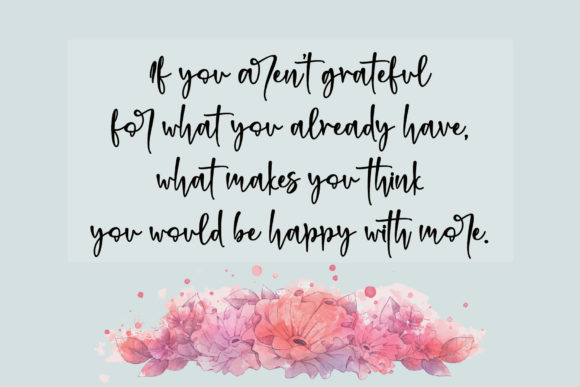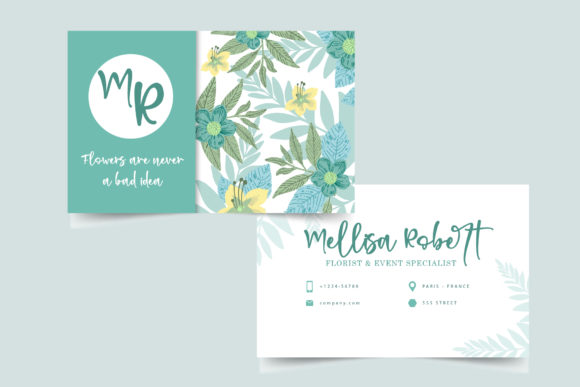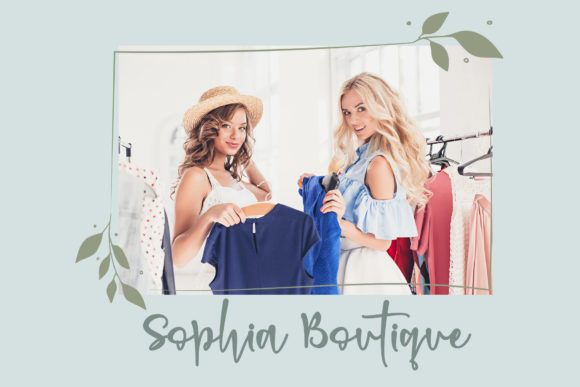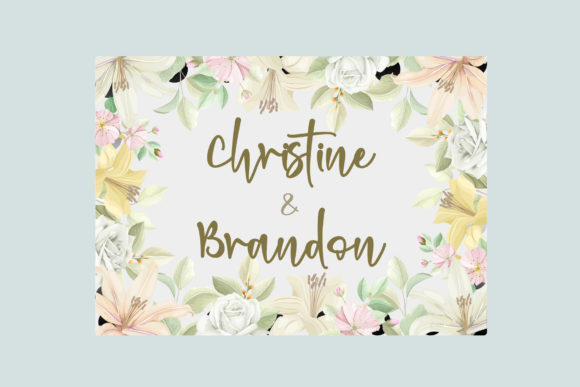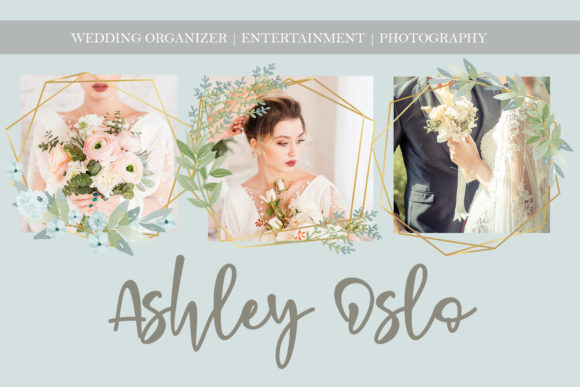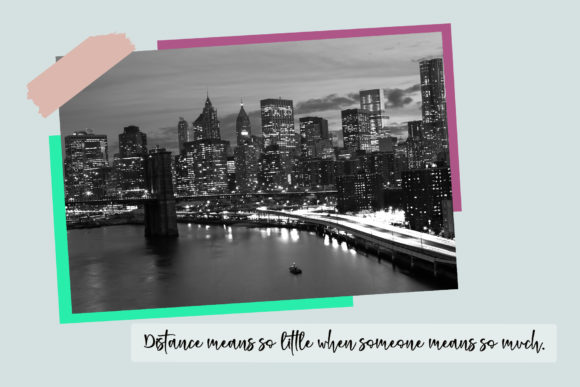
The Magic of Gerallydine Font: Elevate Your Designs with Elegance
I’ll never forget the moment I stumbled upon the Gerallydine font. I was working on a craft project, pouring over my design software, trying to find the perfect handwritten font to bring my vision to life. My client wanted something elegant, yet playful; something that would make their brand stand out. As I scrolled through font after font, I felt like I was stuck in a design rut. That was until I discovered Gerallydine. ✨
An Honest Review of Gerallydine Font
So, what makes Gerallydine so special? Let’s dive into the good stuff and, of course, a few quirks I’ve noticed. 😊
• Unique Charm: Gerallydine has this beautiful, effortless elegance that adds a touch of sophistication to any design.
• PUA Encoded: Being PUA encoded means accessing glyphs and swashes is a breeze, giving you endless creative possibilities.
• 💫 Versatility: Whether you’re working on a logo, a craft project, or social media graphics, Gerallydine fits right in.
While Gerallydine is a stunning font, there are a couple of things to keep in mind. 🤔
• ⚠️ Glyph Overload: With so many glyphs and swashes at your disposal, it can be a bit overwhelming at first. Take some time to explore and get familiar with the font.
• ⚠️ Pairing Challenges: As with any script font, finding the perfect pairing can take some experimentation. Don’t be afraid to try out different combinations.
The Backstory of Gerallydine Font
Gerallydine was crafted with love by a designer who wanted to capture the essence of handwritten elegance. The story goes that the designer was inspired by vintage letters and sought to create a font that felt both nostalgic and fresh. The result is Gerallydine – a font that embodies the beauty of handwritten typography with a modern twist.
Author Stefani Letter
Q: What makes Gerallydine font special?
A: Gerallydine’s unique charm, PUA encoding for easy access to glyphs and swashes, and its versatility across various design projects make it special.
Q: Is Gerallydine difficult to pair with other fonts?
A: Like any script font, it might take some experimentation to find the perfect pairing. The key is to balance elegance with readability.
Gerallydine font is more than just a typeface; it’s a creative partner waiting to bring your designs to life. With its elegant charm, versatility, and ease of use, it’s a fantastic addition to any designer’s toolkit. So go ahead, let your imagination run wild with Gerallydine, and watch your designs transform into stunning works of art. 🌟